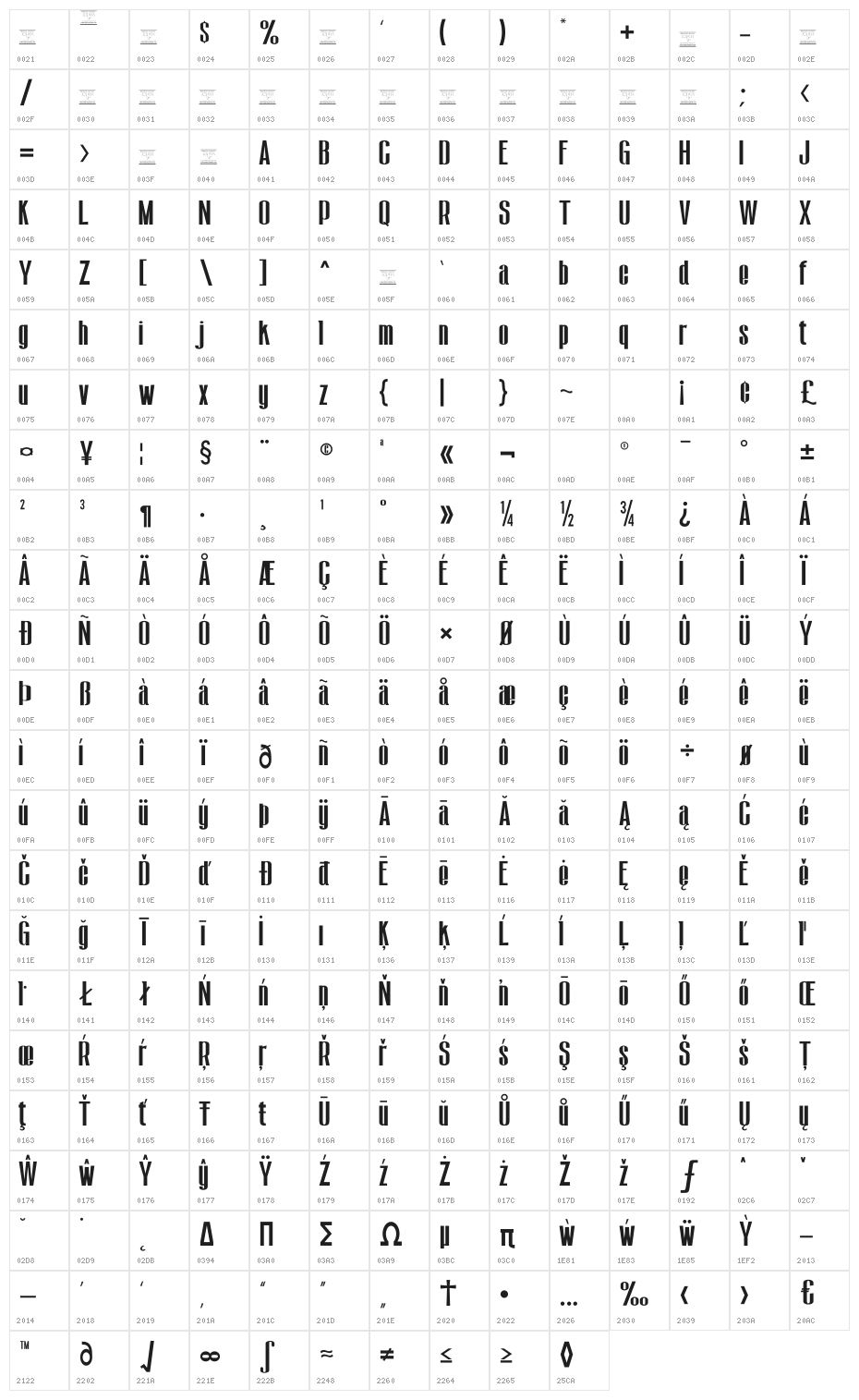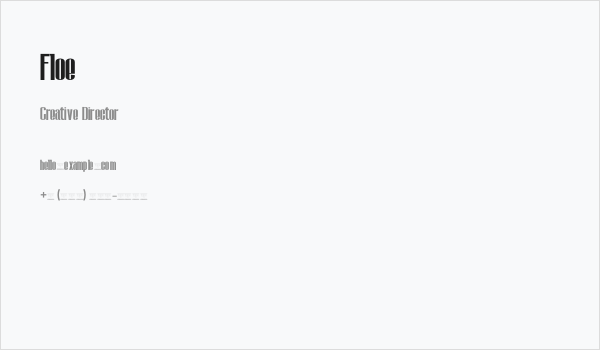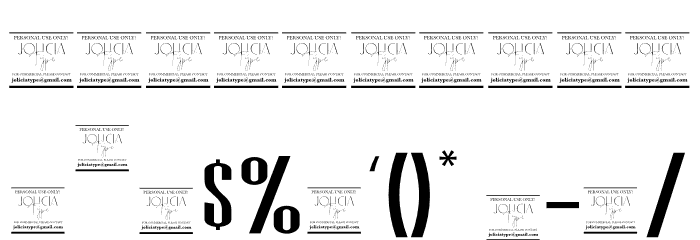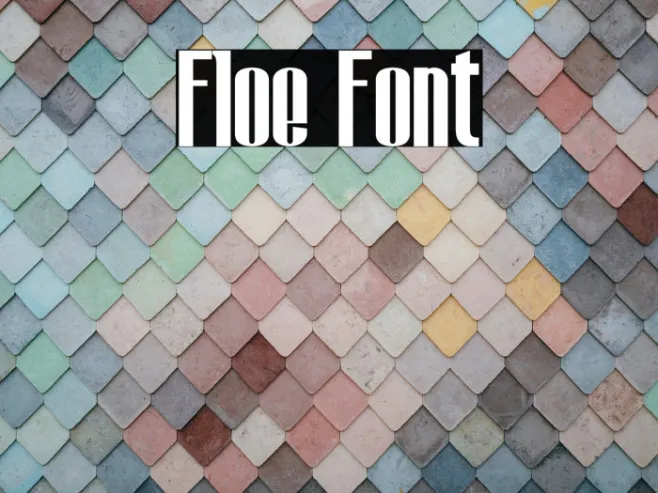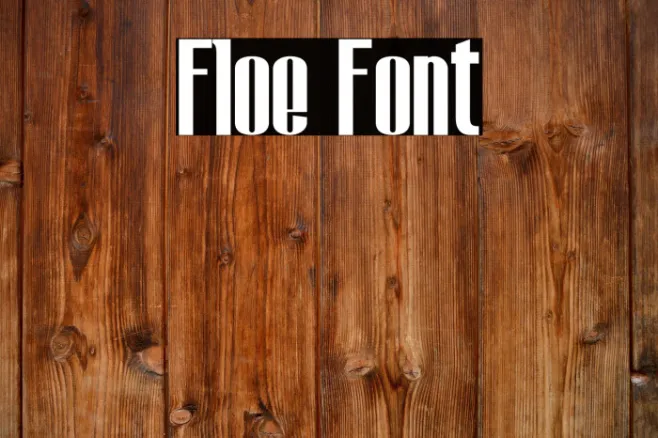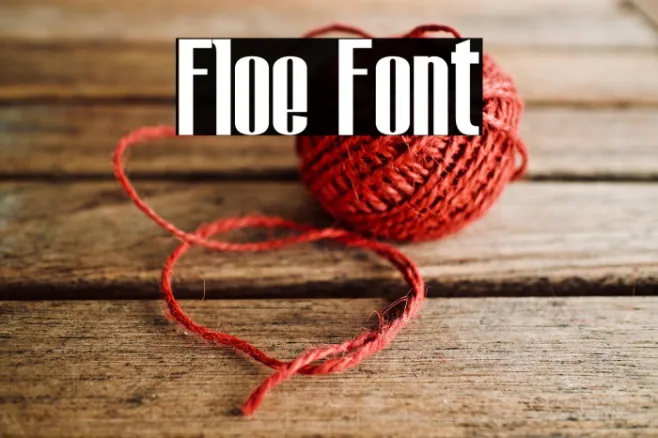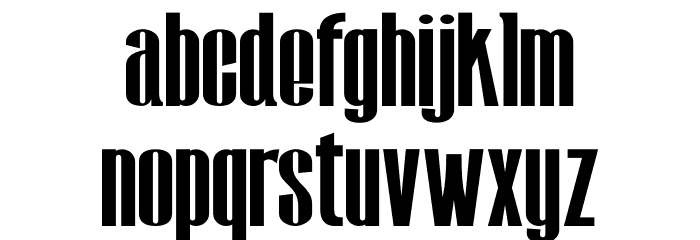
Floe Font
Floe Description
This font features a bold and striking design with tall, narrow characters that create a strong visual impact. The uppercase letters are particularly elongated, giving a sense of height and elegance. The lowercase letters maintain this tall structure, ensuring consistency throughout the typeface. The font has a modern and sleek appearance, with clean lines and minimal ornamentation. It is highly legible, making it suitable for various design applications. The special characters are designed to match the overall aesthetic, with a similar emphasis on height and boldness.
| Proposed Projects | Ideal for headlines, posters, branding, and any project requiring a strong visual presence. |